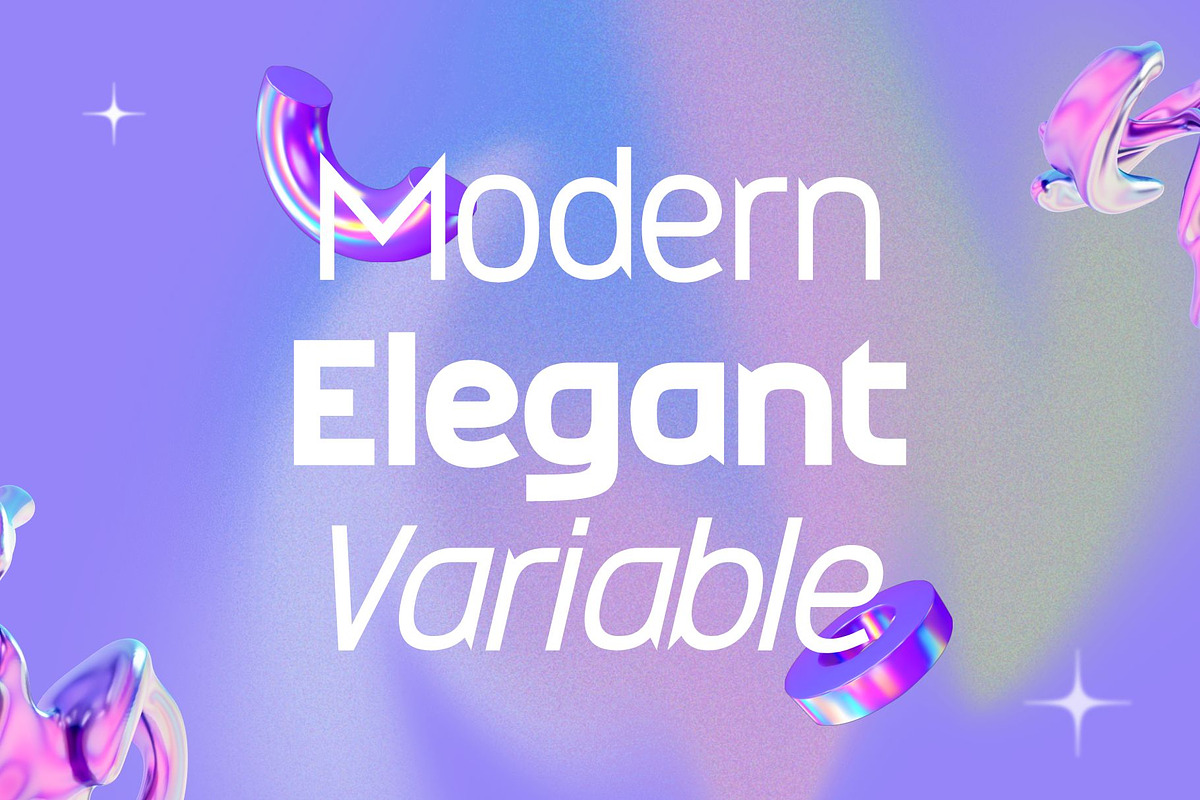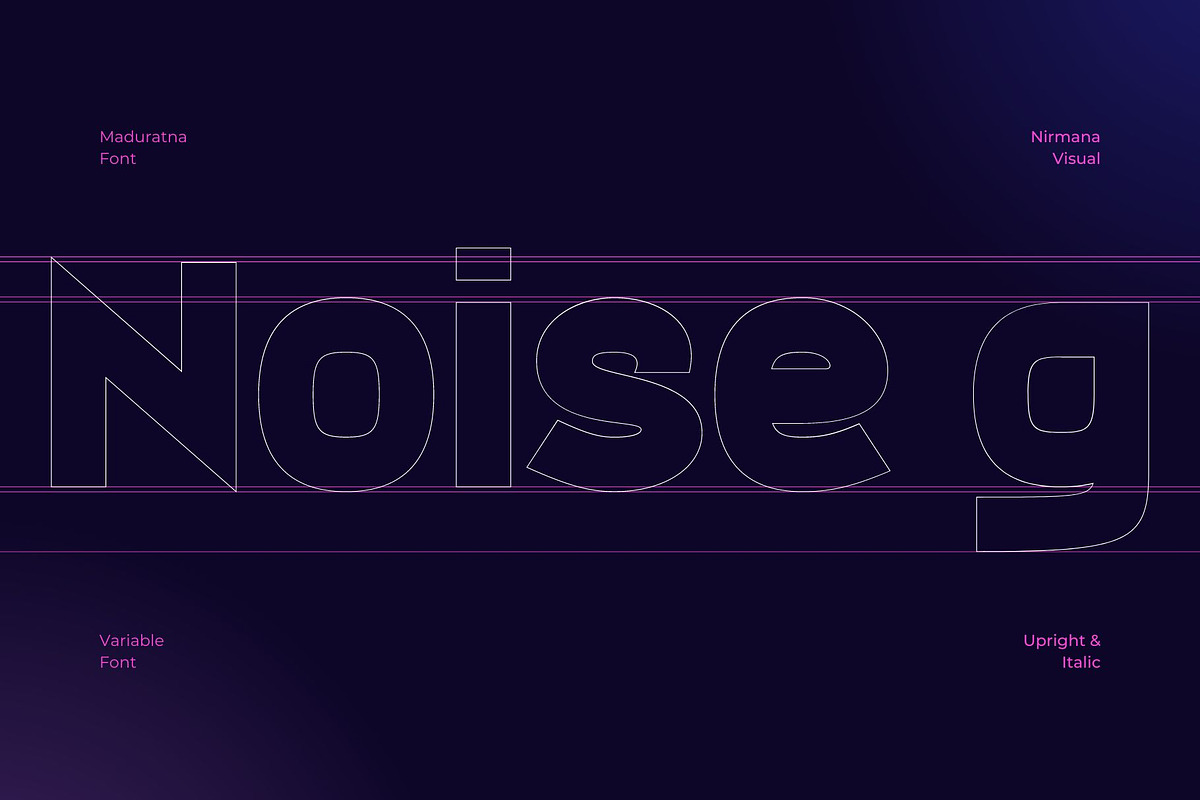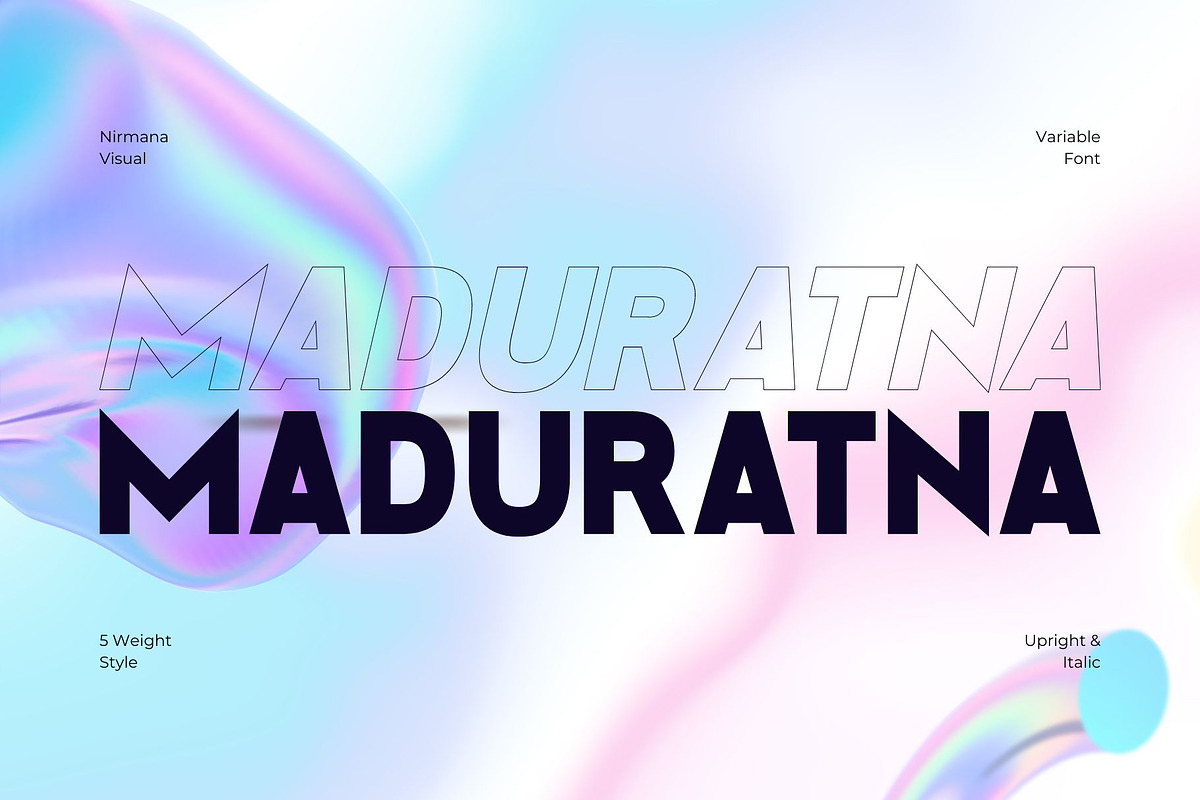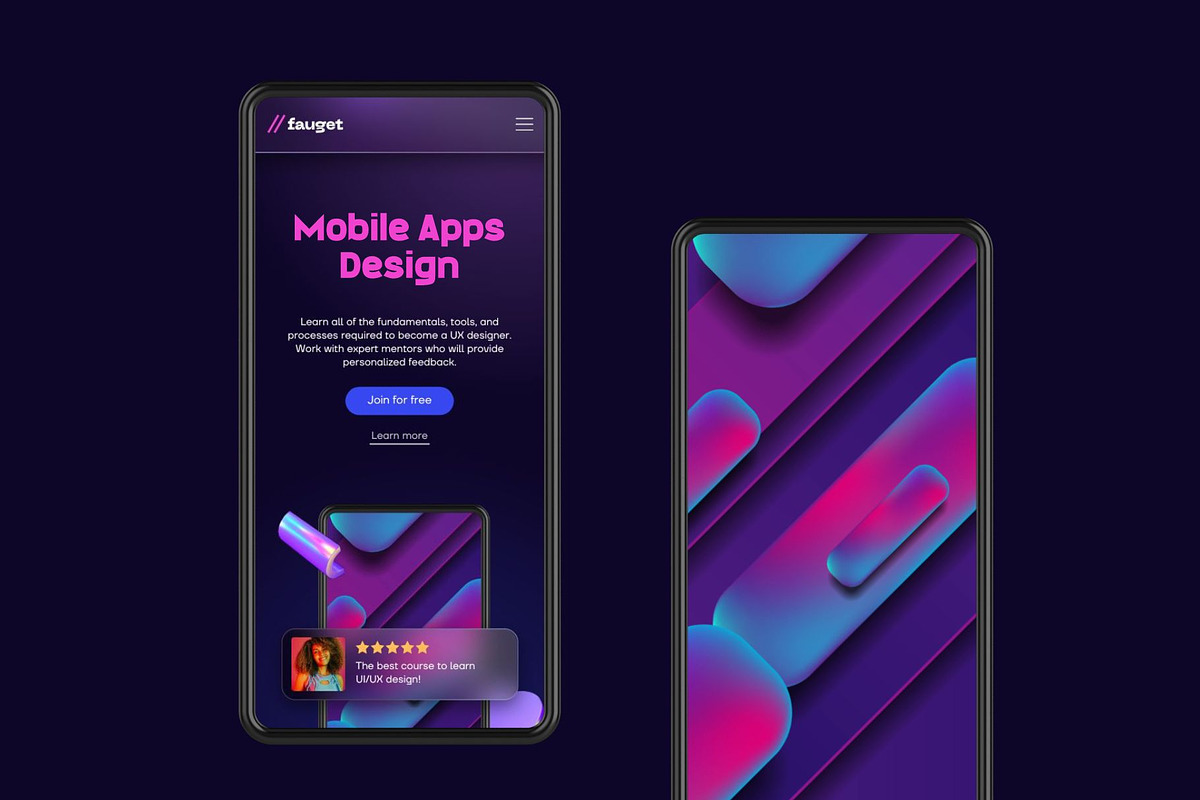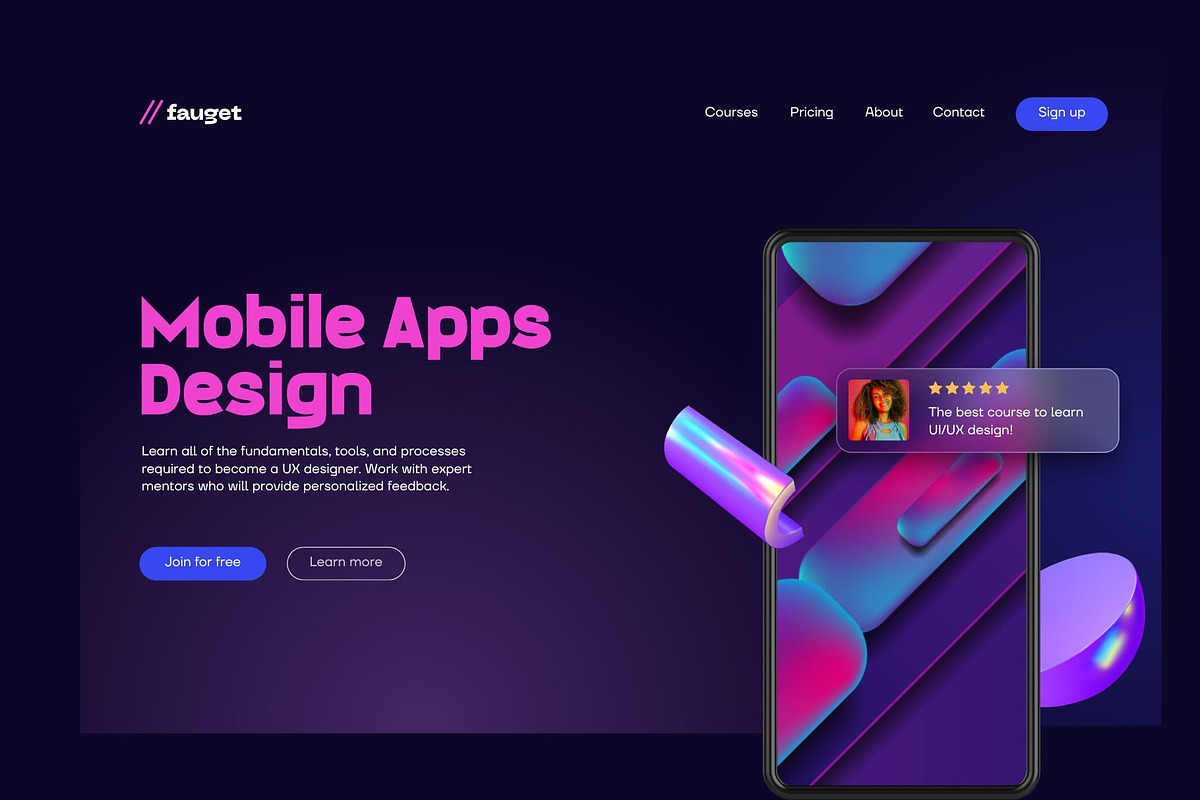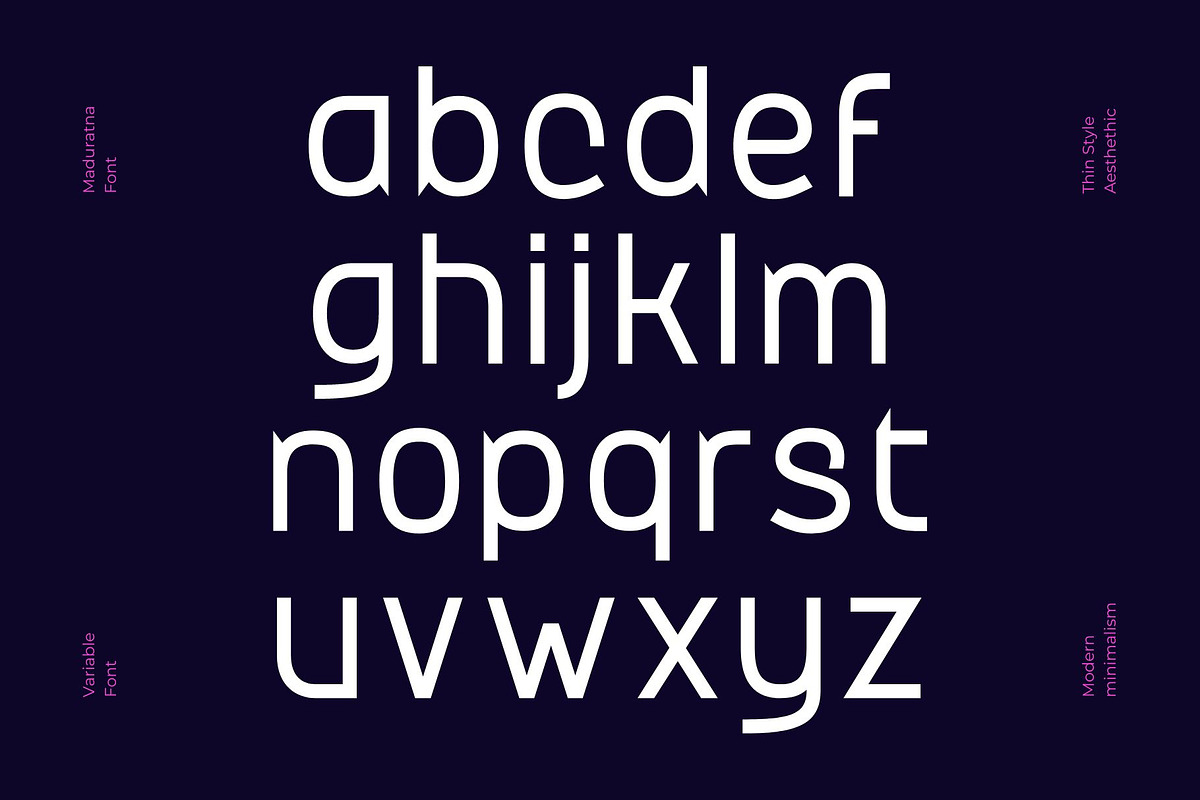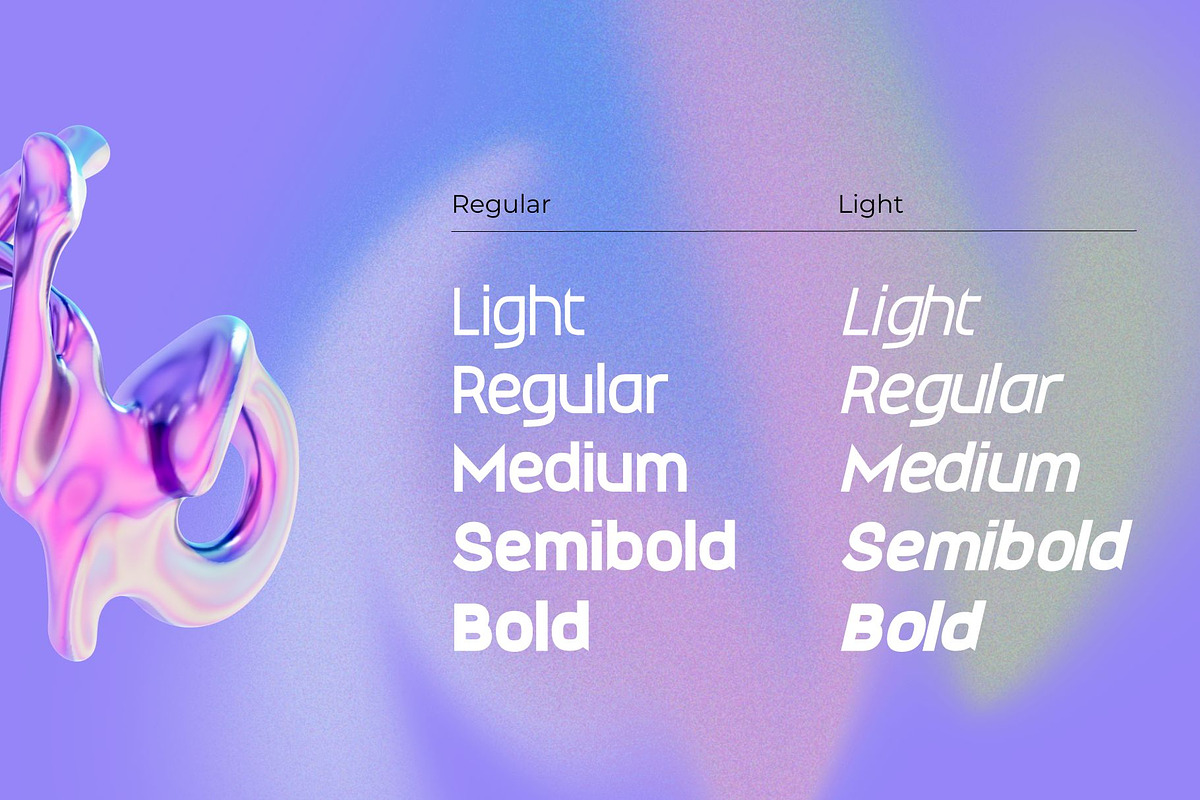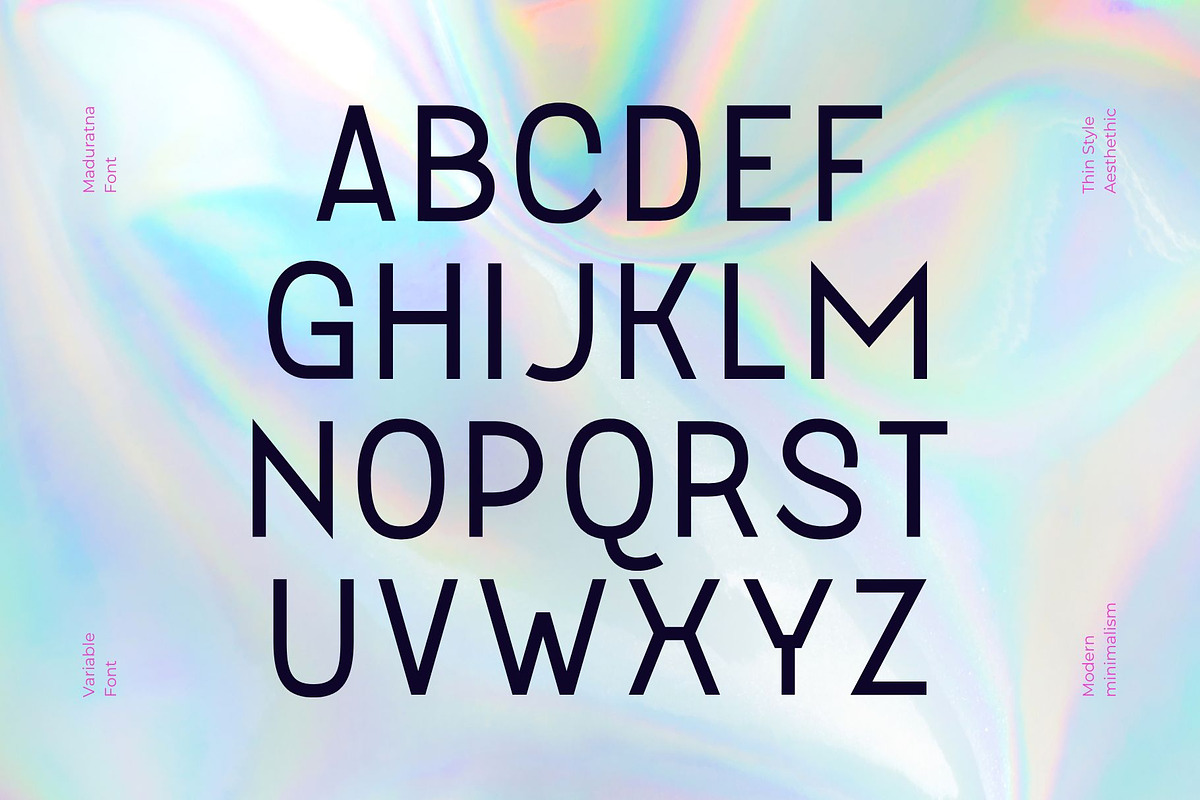
Maduratna - Modern Sans Serif
Maduratna is a luxury font,modern sans serif. full set of lowercase and uppercase letters, numerals and punctuation, multilingual symbols.
Beautiful typographic harmony for a diversity of design projects, including logos & branding, social media posts, advertisements & product designs.